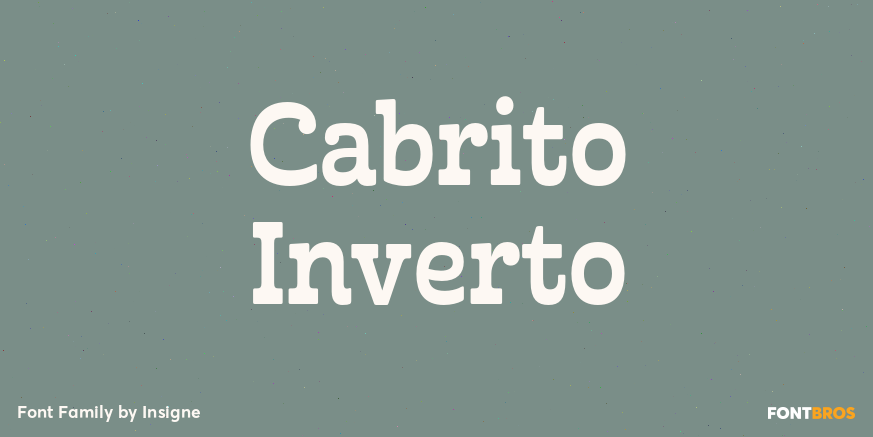
Cabrito Inverto
About Cabrito Inverto
For a short time, you can get a FREE copy of Cabrito Inverto Bold when you pay with a tweet. Life\’s always more fun when you reverse the stress. The same goes for the new member of the Cabrito family. Cabrito itself is a recently developed slab serif…